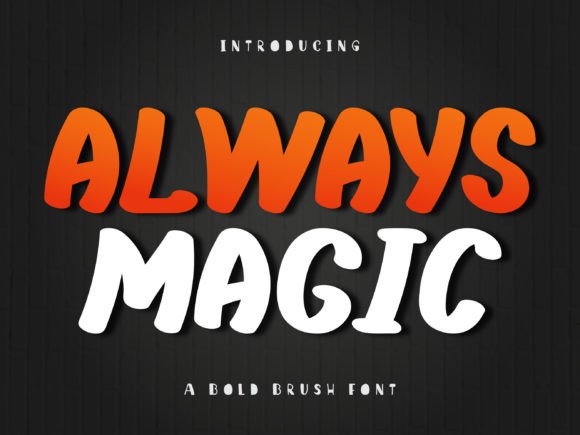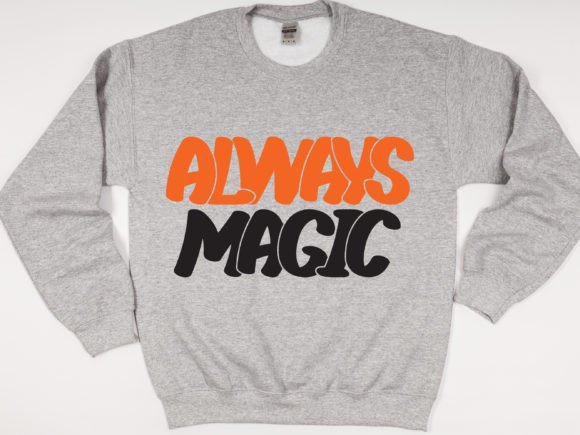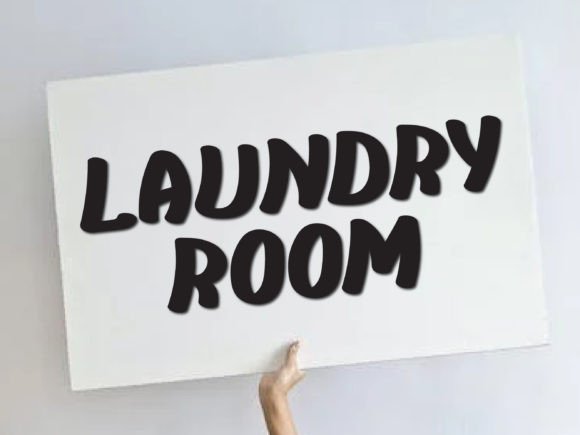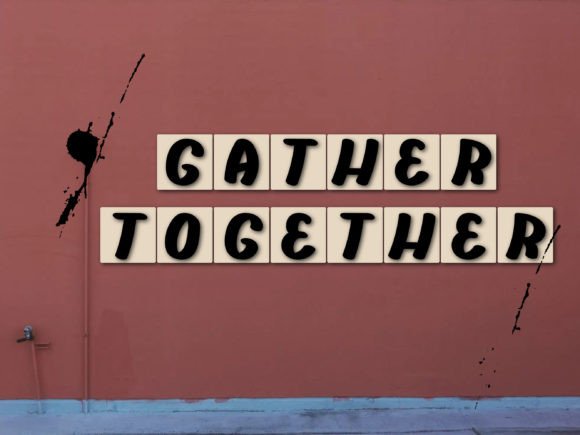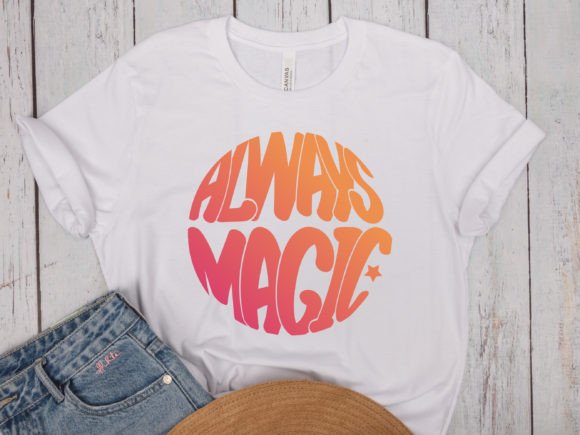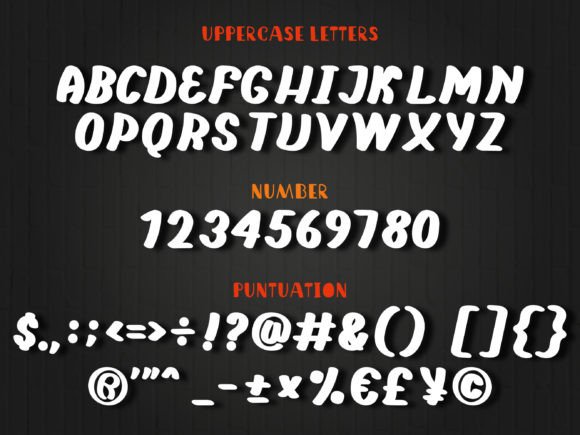
Unlock the Magic of Retro Design with Always Magic Font
Have you ever found yourself rummaging through old trunks and dusty boxes, searching for the perfect invitation to a themed party or a special occasion? The thrill of discovering a vintage invitation or a retro-themed decoration can spark a creative idea that sets your imagination ablaze. And that’s exactly where the Always Magic Font comes in – a versatile, stylish, and playful retro display font that adds a touch of nostalgia and charm to your designs.
Whether you’re a seasoned designer or a DIY enthusiast, Always Magic Font is a valuable tool in your creative arsenal. Its retro-inspired design makes it perfect for creating party invitations, decorations, and other projects that call for a vintage flair. With Always Magic Font, you can bring your ideas to life and take your designs to the next level.
Always Magic Font Key Features
- Unique Characteristics: The font features a unique, hand-drawn design with subtle magical elements, adding a touch of whimsy and fantasy to any text.
Always Magic Font Review
Overall, I was excited to try the Always Magic Font, hoping it would bring a touch of magic to my designs. While it has some great qualities, I found it to be somewhat hit-or-miss. ✨
- The font has a whimsical, hand-drawn feel that’s perfect for creating a playful atmosphere.
- The wide range of weights and styles gives designers plenty of options for customizing their designs.
- The font is highly legible, making it suitable for both body text and headings.
However, there are some limitations to consider ⚠️
Limitsations:
- The font’s magic feel can sometimes come across as too childish or immature.
- The font doesn’t have a consistent tone across all weights and styles, which can make it difficult to achieve a cohesive look.
- The font may not be the best choice for serious or formal designs, as it can come across as too lighthearted.
Overall, the Always Magic Font is a fun and creative option for designers looking to add a touch of whimsy to their work. While it may not be the best choice for every project, it’s definitely worth considering for those looking to create a playful atmosphere.
Tips for Getting the Most Out of Always Magic Font
Experiment with different font sizes, colors, and styles to create unique and captivating designs. Combine Always Magic Font with other fonts and graphics for added visual interest. Use it sparingly to avoid overwhelming the viewer.
Always Magic Font is perfect for creating invitations, posters, and other promotional materials for events, parties, and special occasions. Use it to add a touch of whimsy to your designs and capture the attention of your audience.